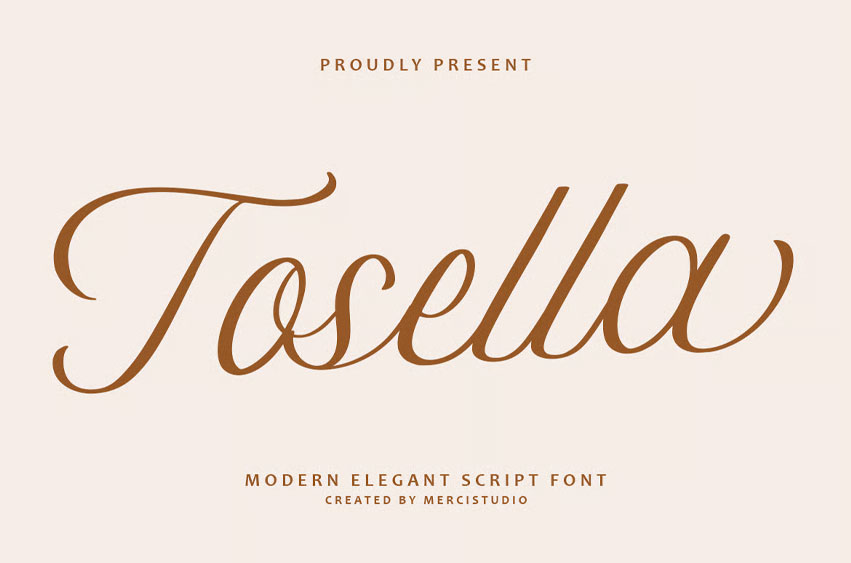
Tosella Font is a modern elegant script typeface crafted to elevate visual communication with its refined flow, polished letterforms, and expressive handwritten charm. Designed for creators who value sophistication and clarity, Tosella brings a graceful balance of modern aesthetics and timeless script artistry.
Its smooth movement and consistent rhythm make it an exceptional choice for branding identities, signature-style logos, premium product packaging, editorial layouts, invitations, and any project that requires a luxurious and memorable typographic presence. Tosella enhances every composition with a subtle sense of warmth, professionalism, and artistic finesse—making it a dependable companion for designers who seek elegance without compromising versatility.
• Uppercase Letters
• Ligature & Alternate Character
• Unique Hand-Drawn Style